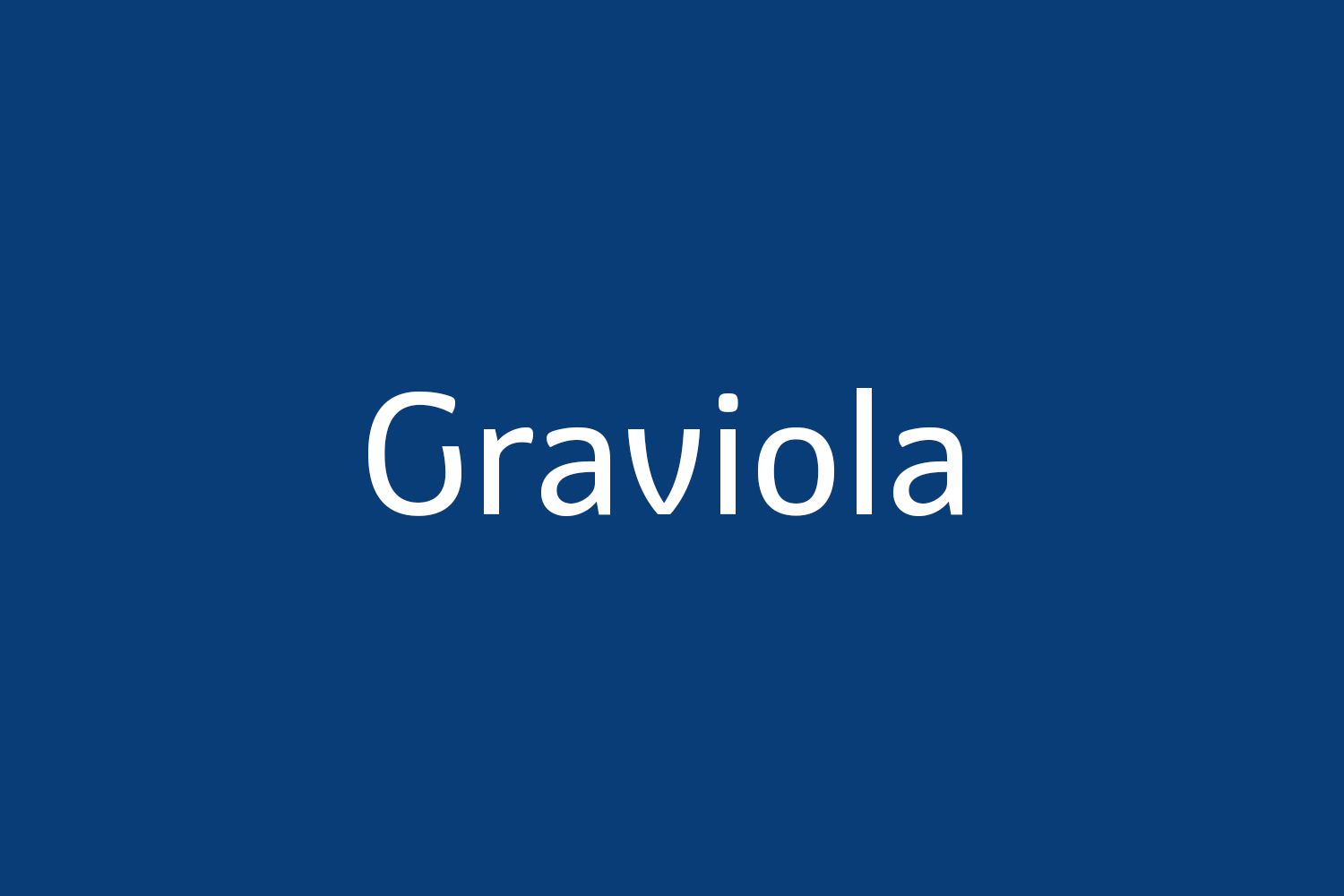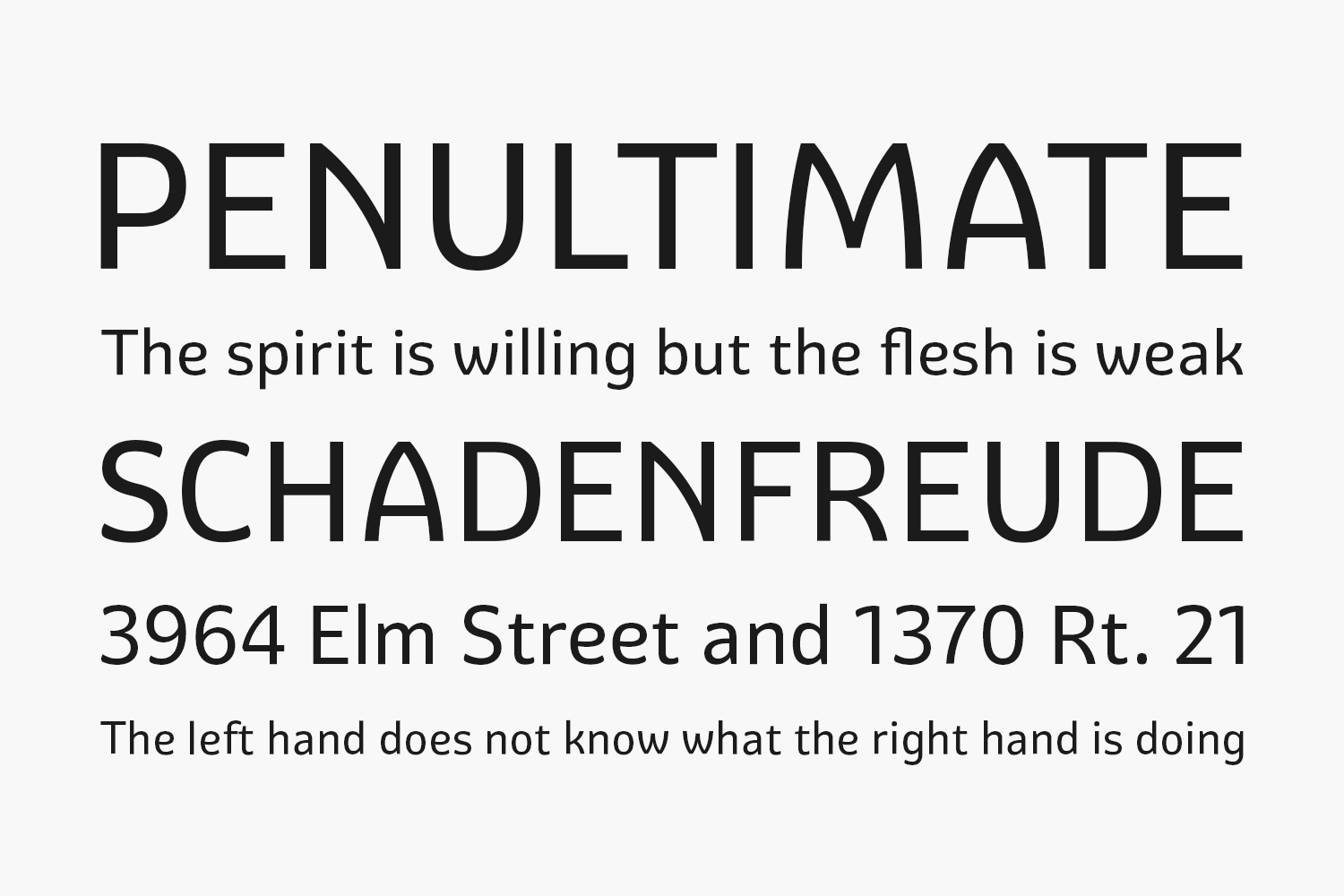
With semi-rounded terminals, Graviola Free Font is soft and friendly. The font contains 533 glyphs, supporting more than 40 languages. Stylistic sets provide alternates in two groupings (a, v, w, y and G, g, &).